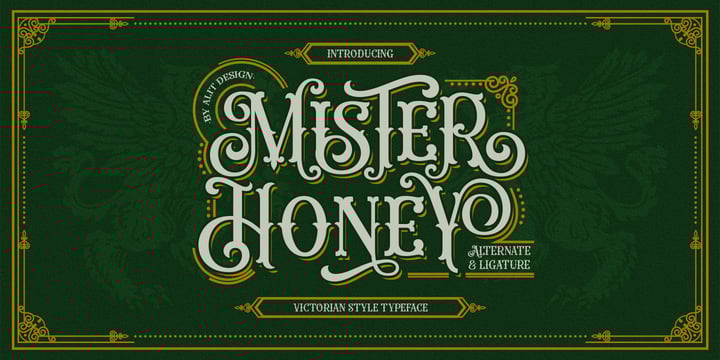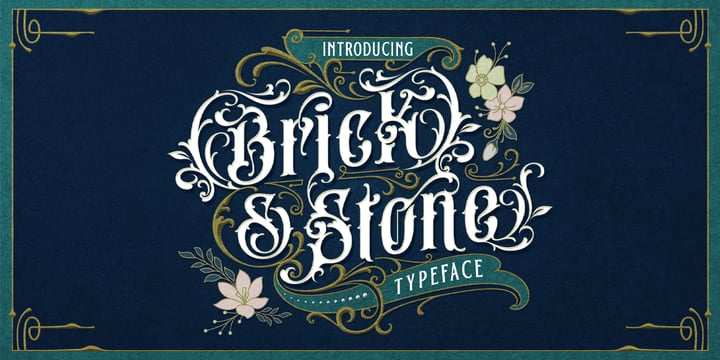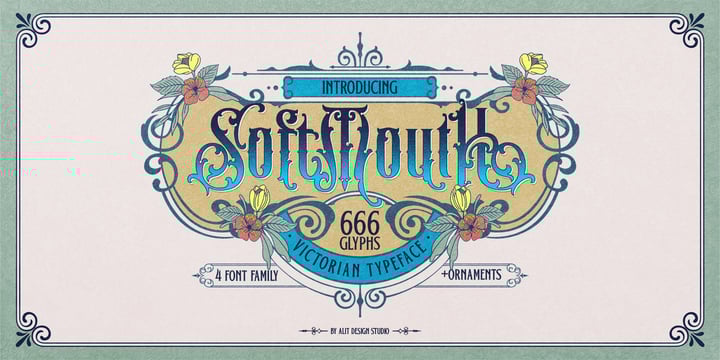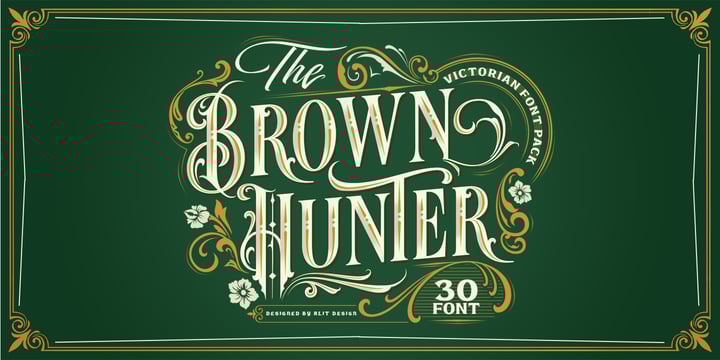
Victorian Collection
Elevate your design projects to the pinnacle of elegance and sophistication with the Victorian Bundle by Alit Design Collection. This meticulously crafted bundle encapsulates the timeless charm of the Victorian era, offering a curated selection of fonts that evoke the opulence and grace of that bygone age.